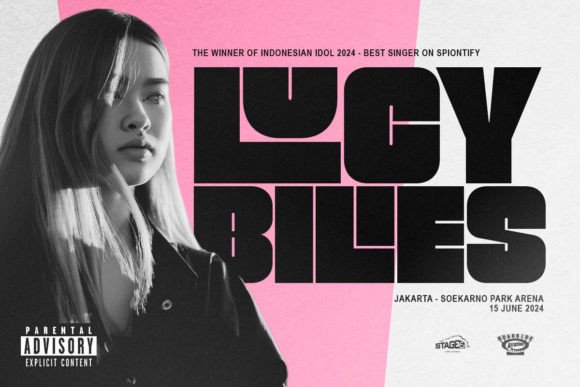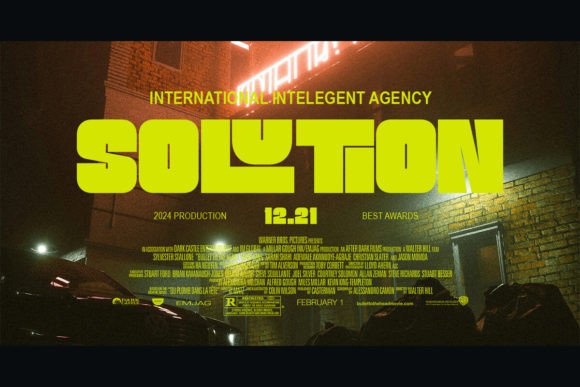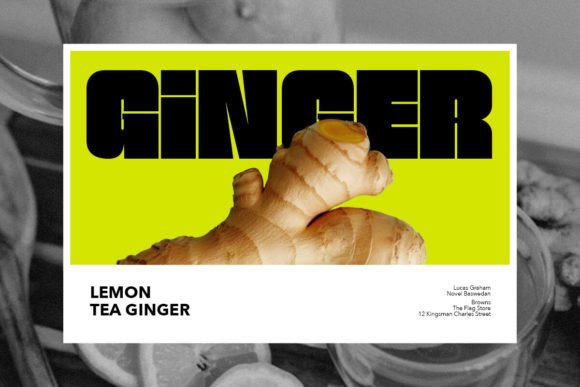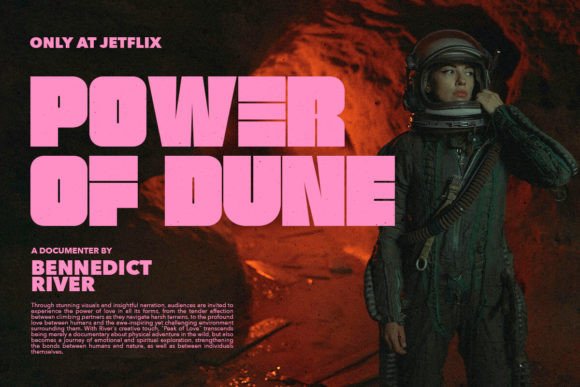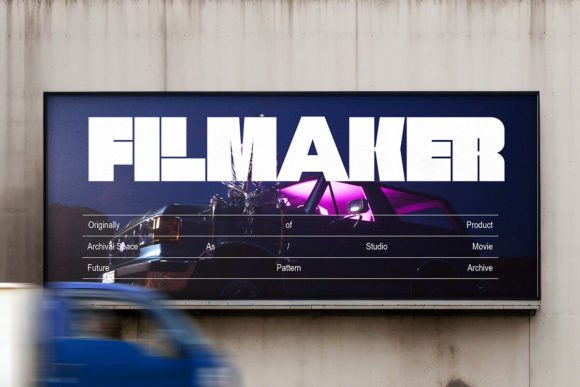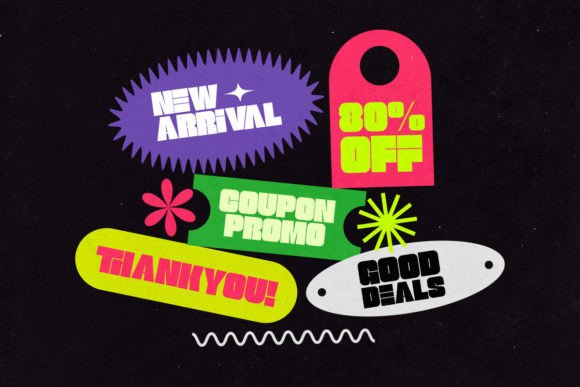
The Designer’s Delight: Unleashing the Power of Boltire Font
I’ll never forget the time I was working on a project for a client who needed a bold, eye-catching font to make their brand stand out. I scoured the internet, tried countless fonts, but nothing seemed quite right. That was until I stumbled upon Boltire Font – an all-caps, strong bold font with ligatures that instantly caught my attention. In this article, I’ll share my experience with Boltire, its features, and how to make the most of it in your designs.
A First Impression: What I Love About Boltire
Here’s what I love about Boltire Font:
- ✨ Unique Ligatures: Boltire’s ligatures add a touch of elegance to any design, making it perfect for headlines, quotes, and logotypes.
- ✅ Multi-Language Support: Whether you’re designing for a global audience or working on a project that requires multiple languages, Boltire has got you covered.
- 💪 Strong and Bold: This font is not for the faint of heart – it’s loud, proud, and demands attention.
- 🎨 Versatile: From posters to social media graphics, Boltire can be used for a wide range of design projects.
While Boltire is an excellent font, there are a few things to keep in mind:
- 🤔 Limited Lowercase Options: Since Boltire is an all-caps font, the lowercase letters are stylized and might not be suitable for body text.
- ⚠️ Glyph Limitations: While Boltire supports a wide range of languages, some users might find the glyph selection limited for certain languages.
The Story Behind Boltire
While I couldn’t find any information on the origins of Boltire Font, I like to imagine that it was created by a team of designers who wanted to craft a font that would make a bold statement. Perhaps they were tired of bland, generic fonts and decided to create something that would stand out in a crowded design landscape. Whatever the story, Boltire is undoubtedly a unique and powerful font that’s sure to make an impact.
Q: What is Boltire Font?
A: Boltire Font is an all-caps, strong bold font with ligatures, perfect for headlines, quotes, and logotypes.
Q: Is Boltire suitable for body text?
A: While Boltire is a beautiful font, it’s not ideal for body text due to its bold and stylized nature. However, it can be used for short paragraphs or captions.
Q: Does Boltire support multiple languages?
A: Yes, Boltire supports multiple languages, making it a great choice for designers working on global projects.